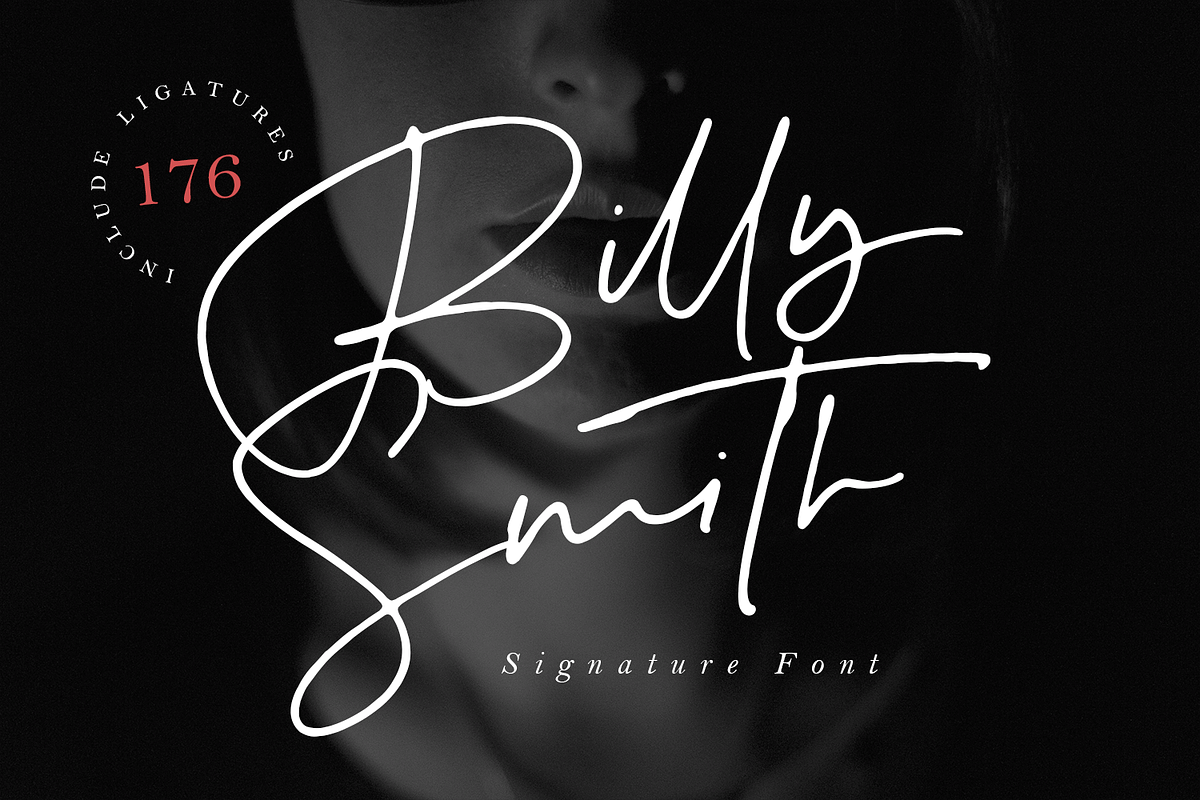
Billy Smith - Signature Font Free Download is a stylish and elegant script font that mimics the fluidity of a handwritten signature. Perfect for personal branding, logos, invitations, and creative projects, this font adds a sophisticated, authentic touch to your designs. Its smooth curves and flowing lines make it ideal for projects requiring a personal, signature-like feel.